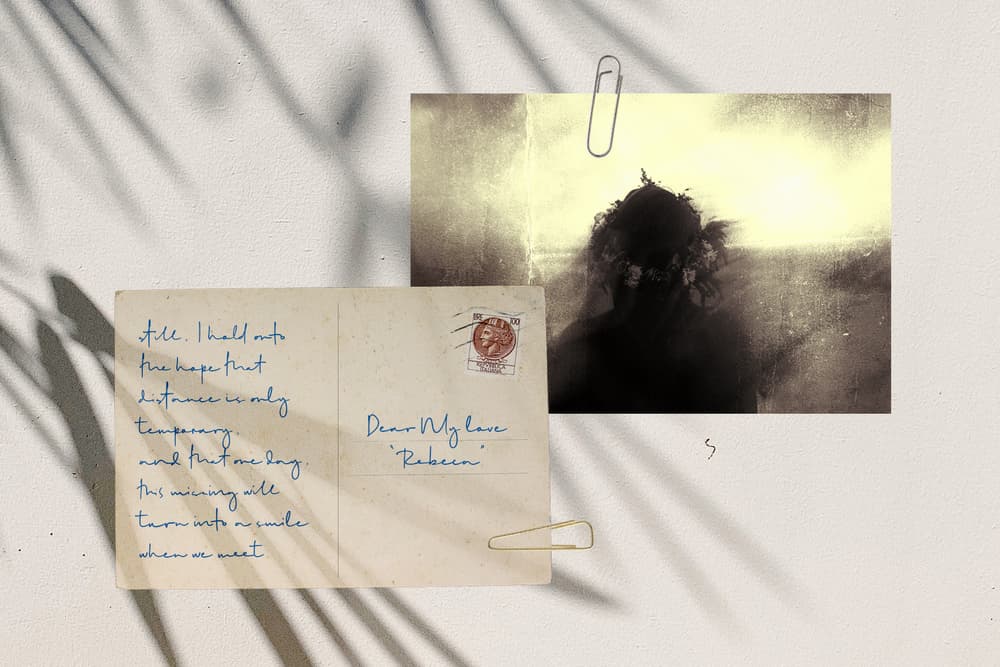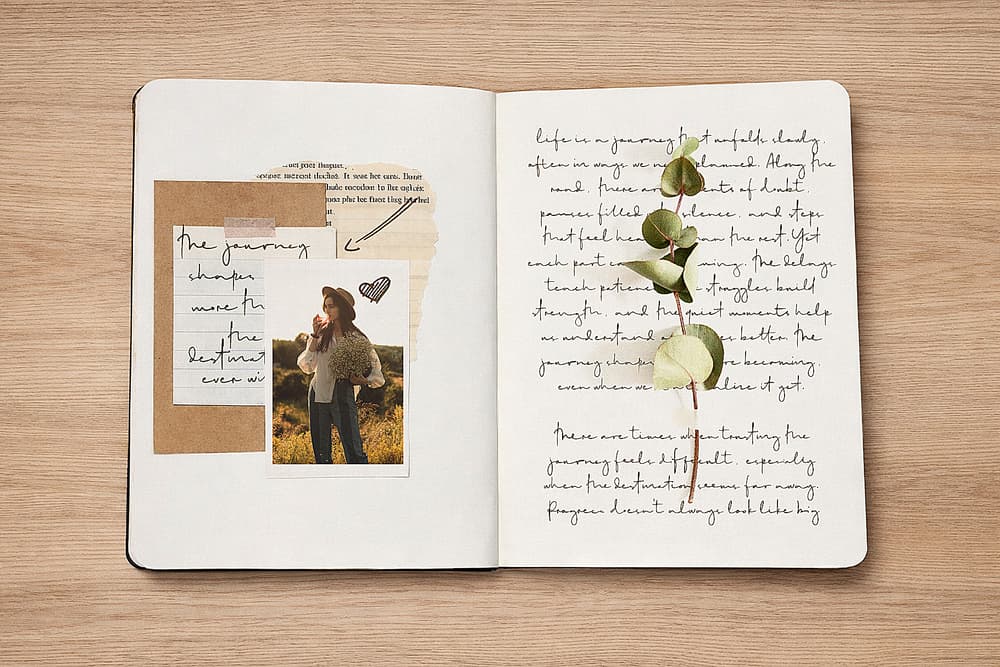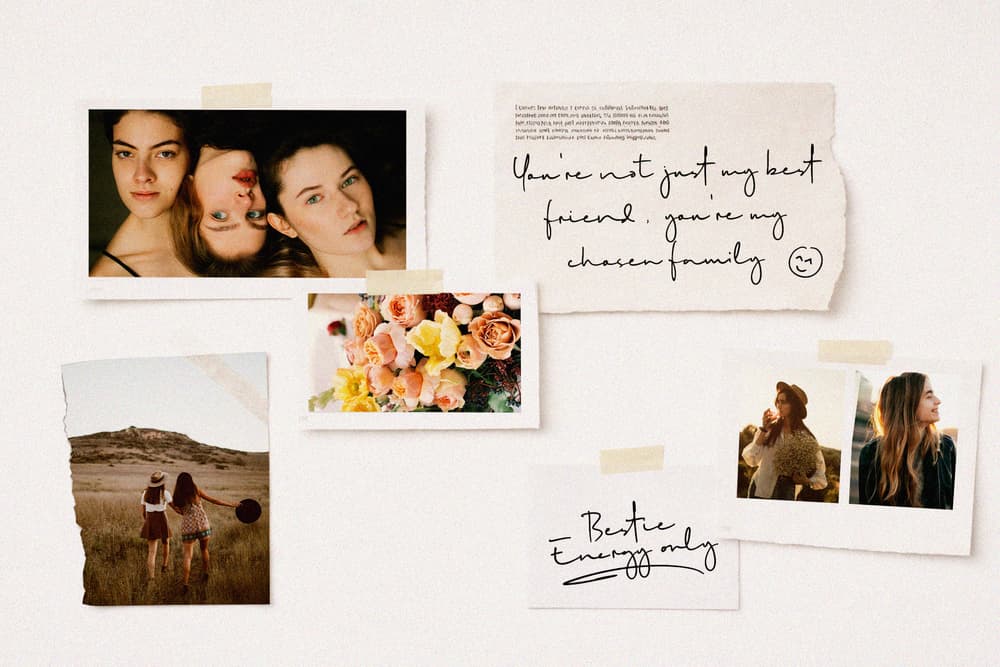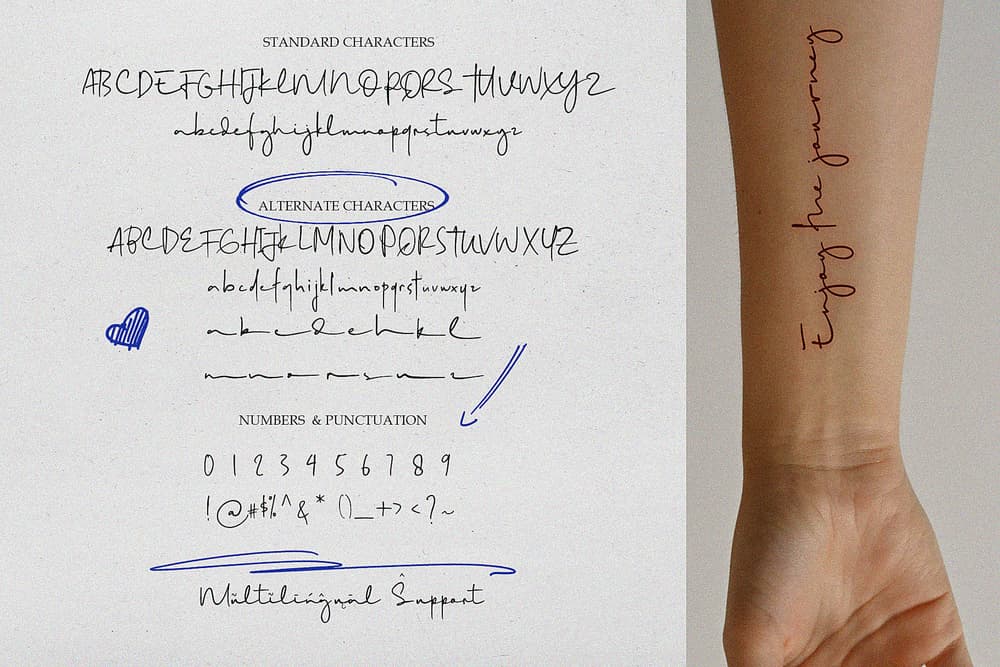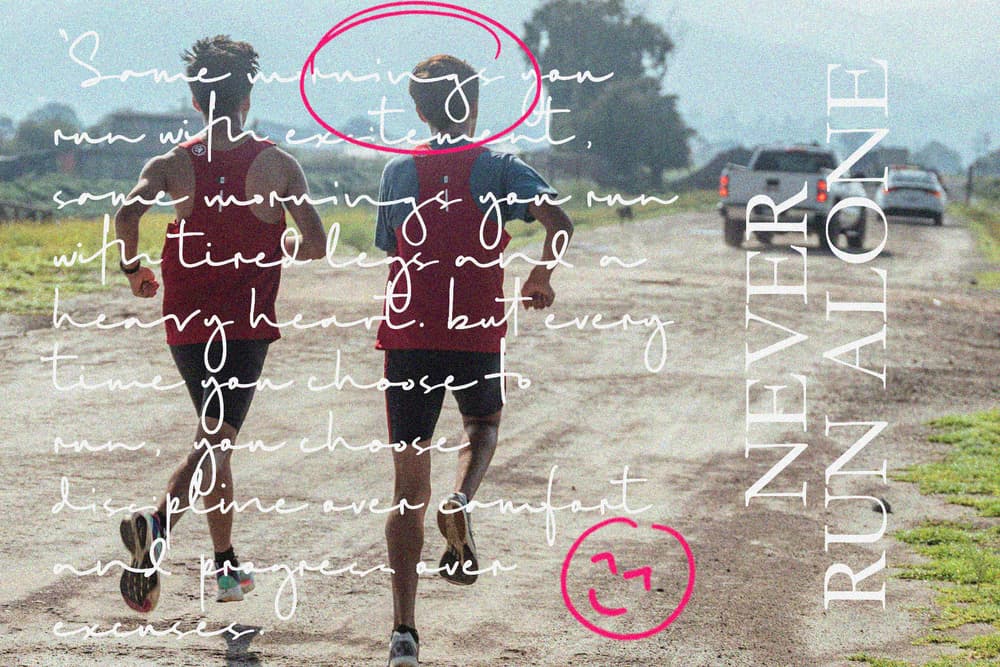
A clean and elegant handwritten script font with thin, smooth strokes and a Organic flow.d. Perfect for branding, quotes, logos, packaging, and social media designs. 𝐅𝐞𝐚𝐭𝐮𝐫𝐞𝐬 : ☛ Standard ligatures ☛ Alternates ☛ Uppercase & lowercase letters ☛ Numerals & punctuation ☛ Multilingual support 𝐅𝐨𝐫𝐦𝐚𝐭 : OTF, TTF, and WOFF.